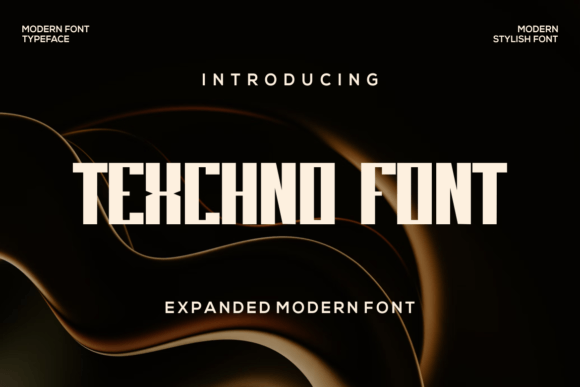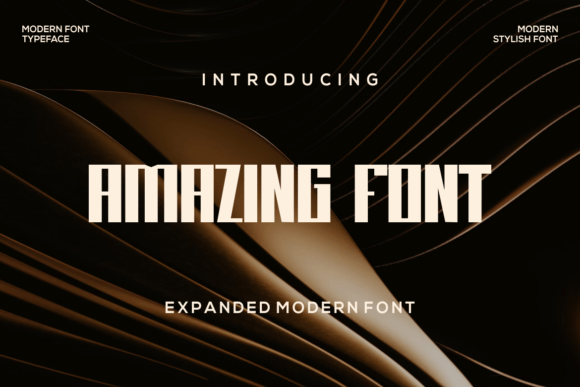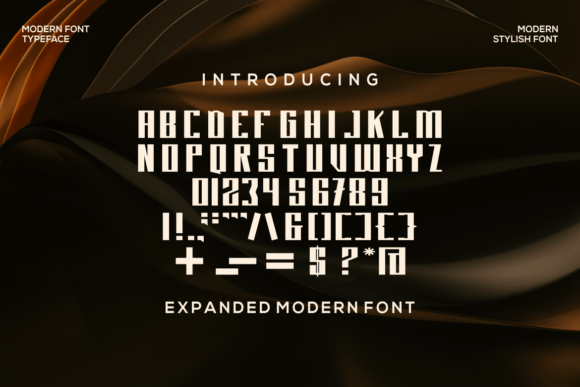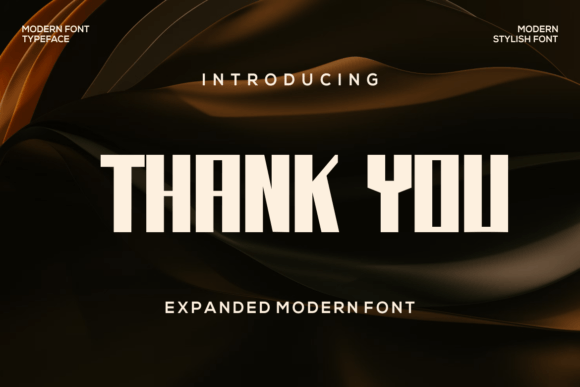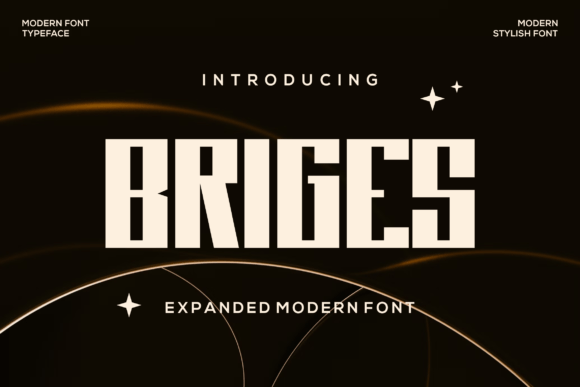
Introducing Briges Font: The Ultimate Modern Display Font for Creative Projects
In the world of design, a font can make all the difference in creating a lasting impression. That’s why we’re excited to introduce Briges Font, a bold and authentic display font that’s perfect for any branding project. Whether you’re a designer, crafty entrepreneur, or simply someone who loves to create, Briges Font is the perfect addition to your toolkit.
What is Briges Font?
Briges Font is a modern font designed to make a statement. Its bold and authentic style makes it perfect for a variety of applications, from logos and t-shirt printing to creative products and more. With its unique character and versatility, Briges Font is sure to elevate your designs to the next level.
Key Features of Briges Font
• Bold and Authentic Style: Briges Font boasts a bold and authentic style that’s sure to grab attention.
• Versatile: Perfect for a variety of contexts, including logos, t-shirt printing, creative products, and more.
• Easy to Read: Despite its bold style, Briges Font is easy to read, making it perfect for headlines and titles.
• High-Quality: Briges Font is a high-quality font that’s designed to deliver exceptional results.
Why Choose Briges Font?
With so many fonts available, why choose Briges Font? Here are just a few reasons why designers and crafters are falling in love with this amazing font:
• Unique Character: Briges Font has a unique character that’s sure to set your designs apart from the crowd.
Use Cases for Briges Font
So, what can you do with Briges Font? The possibilities are endless! Here are just a few ideas to get you started:
• Logos: Create a bold and memorable logo for your business or brand.
• T-Shirt Printing: Design eye-catching t-shirts that are sure to turn heads.
• Creative Products: Add a personal touch to your creative products, such as mugs, phone cases, and more.
• Signage: Create attention-grabbing signage for your business or event.
Tips for Using Briges Font
To get the most out of Briges Font, here are a few tips to keep in mind:
• Use it Boldly: Briges Font is designed to make a statement, so don’t be afraid to use it boldly.
• Experiment with Colors: Try pairing Briges Font with different colors to create a unique look.
• Mix and Match: Combine Briges Font with other fonts to create a unique and interesting design.
In conclusion, Briges Font is a bold and authentic display font that’s perfect for any branding project. With its unique character, versatility, and high-quality design, Briges Font is sure to elevate your designs to the next level. Whether you’re a designer, crafty entrepreneur, or simply someone who loves to create, Briges Font is the perfect addition to your toolkit. So why wait? Download Briges Font today and start creating amazing designs!